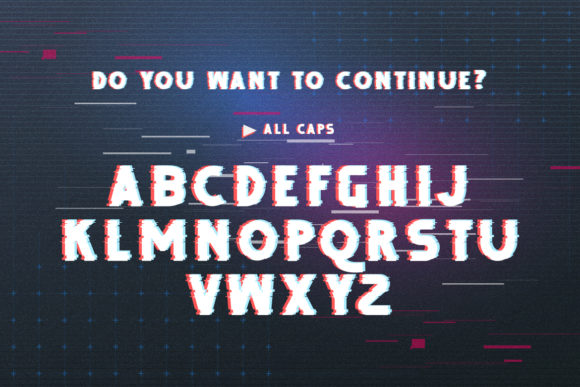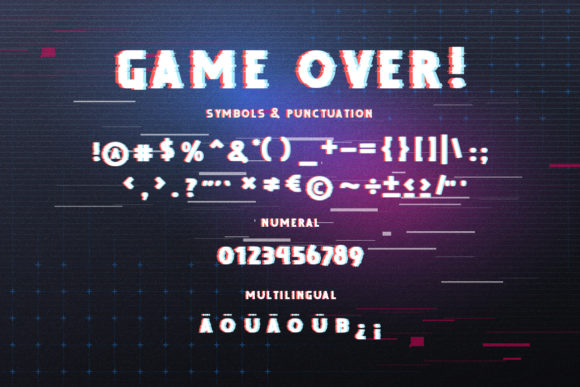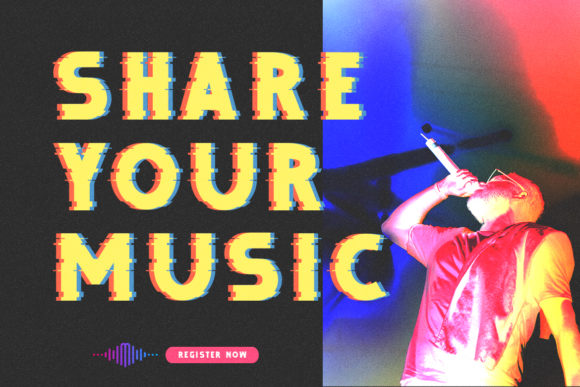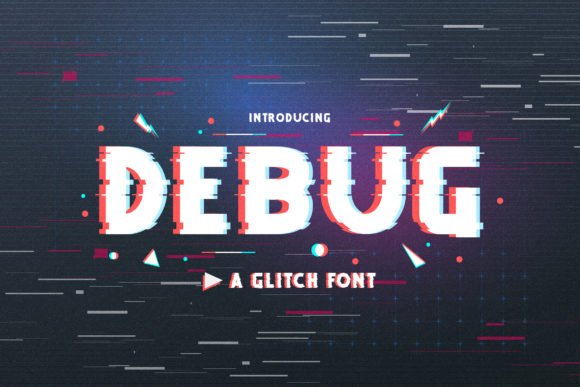
Introduction to Debug Font
Debug is a great all-caps display font, featuring multilingual letters, numbers and punctuation.
It is perfect for headlines of all sizes, as well as for blocks of text that have both maximum and minimum variations .